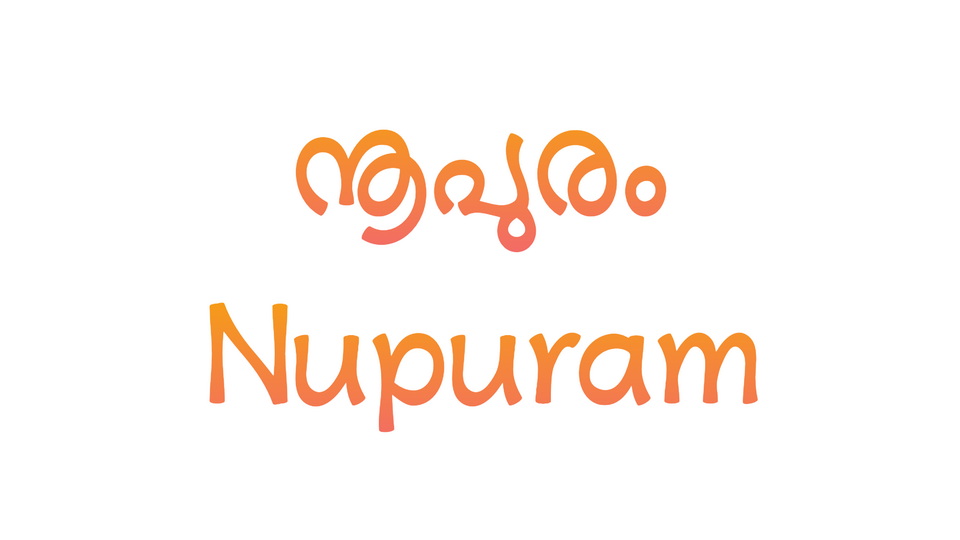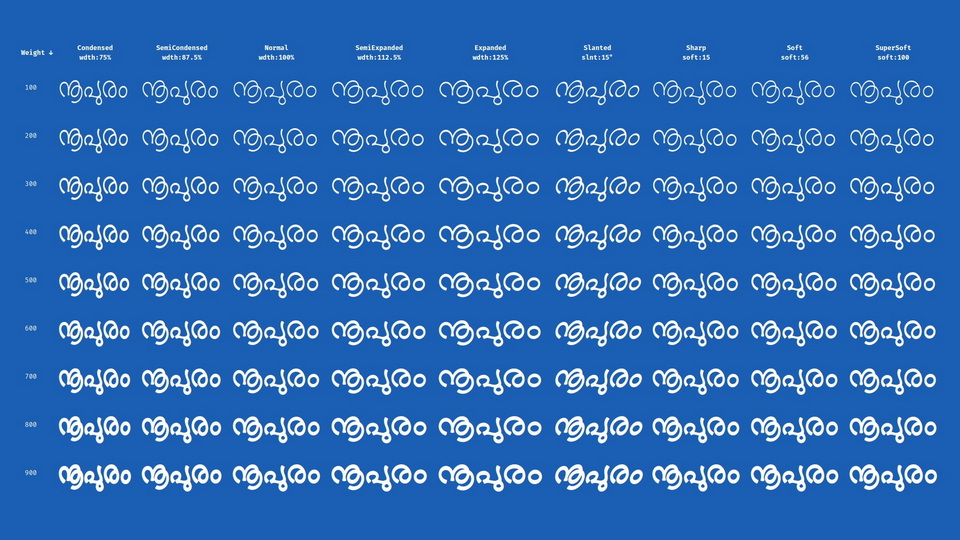
Nupuram is a Malayalam typeface, inspired from the early Malayalam movie titles designs. The curves are fluid, bold and expressive.
Taking full advantage of variable font technology, Nupuram offers an unprecedented level of flexibility, all from a single font file. Nupuram come with four variable axes each: weight (thin to black), width (condensed to expanded), soft(sharp to supersoft) and slant (regular to italics). By combining these axes freely, you have access to thousands of different looks, and endless of possibilities.
The variable font capability makes Nupuram font stylistically flexible and warmly energetic.